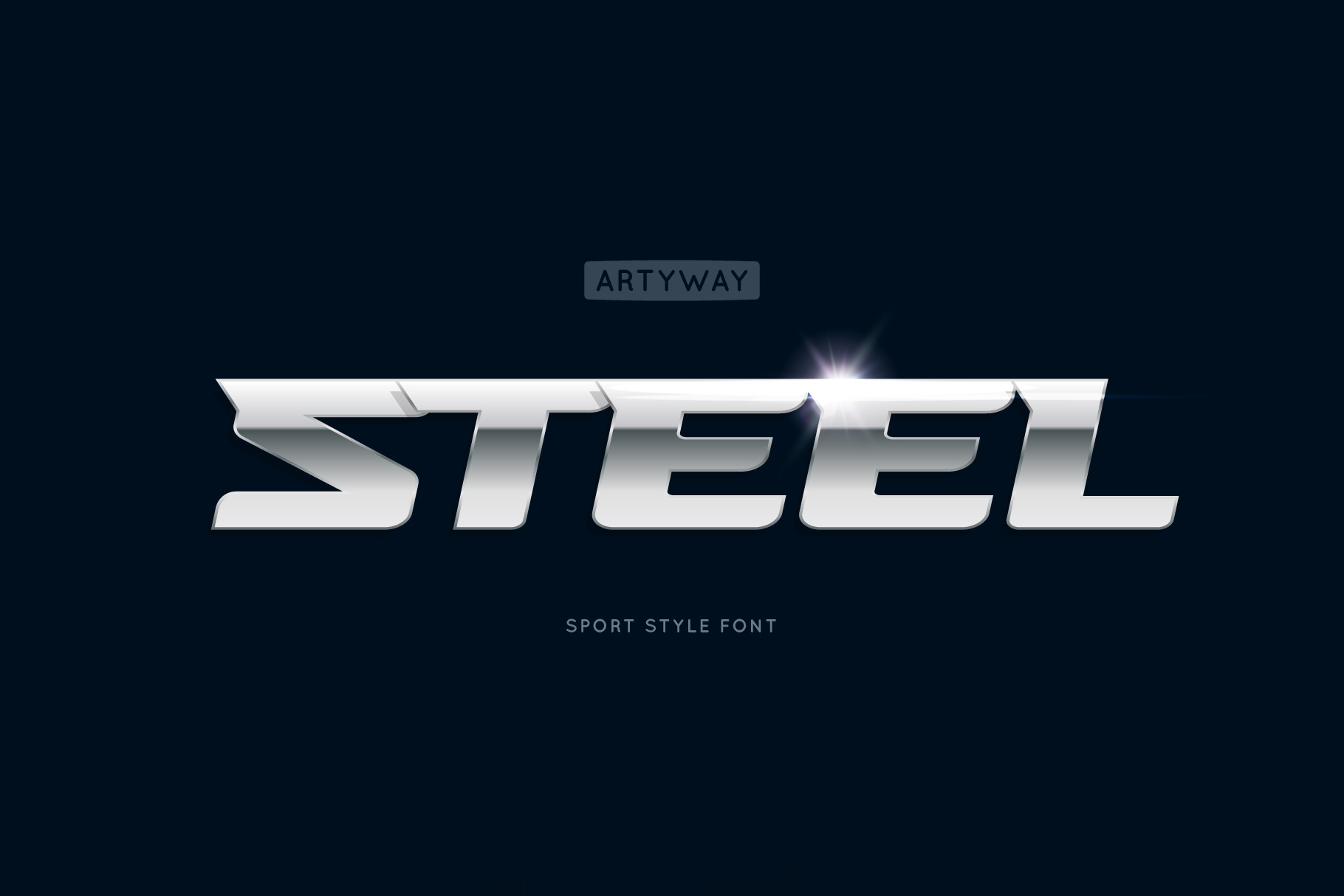
Headline Steel Font
Powerful design of the Steel Race font will speed up your pulse!
Wide with sharp serifs and a verified angle of inclination radiate confidence and respect.
The "Steel" will save your time and nerves when creating the dynamic compositions, like sports events and promotions or logos.
- Uppercase and lowercase english letters